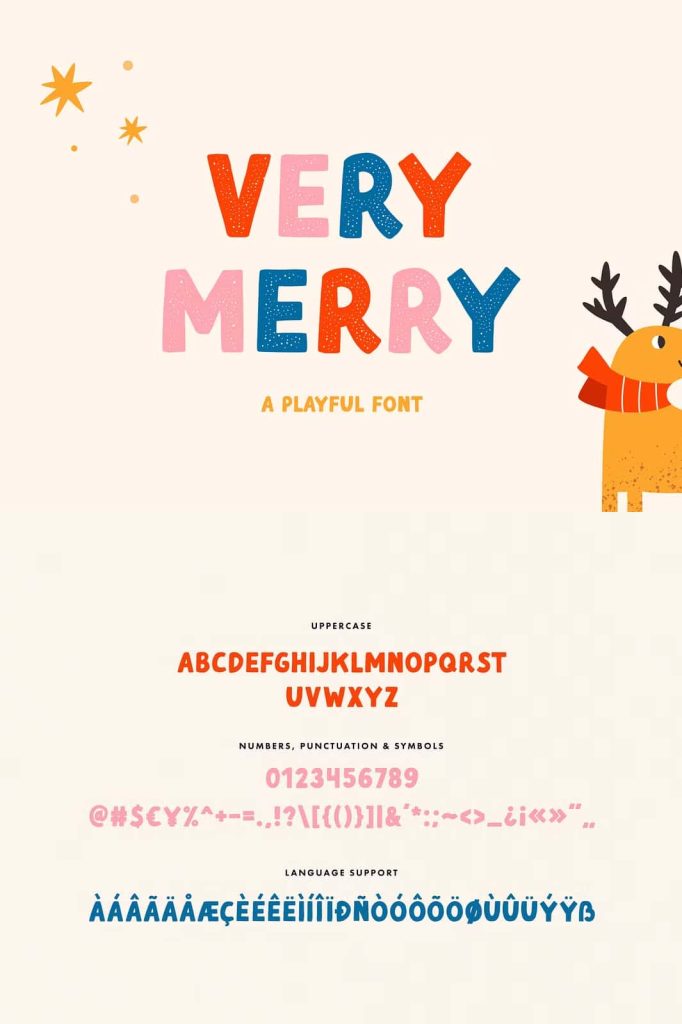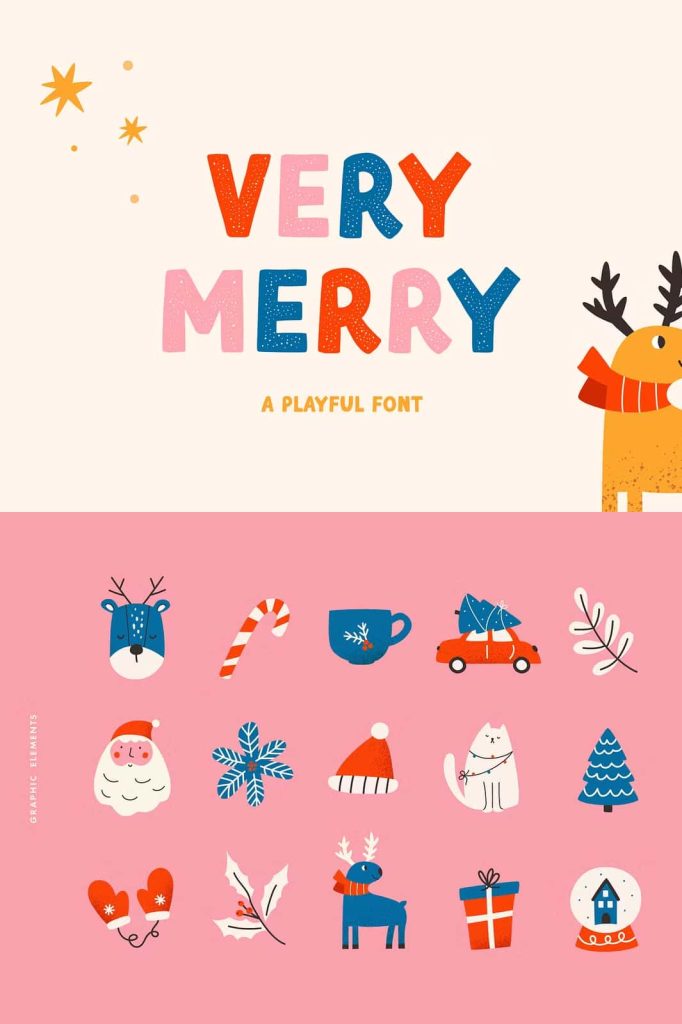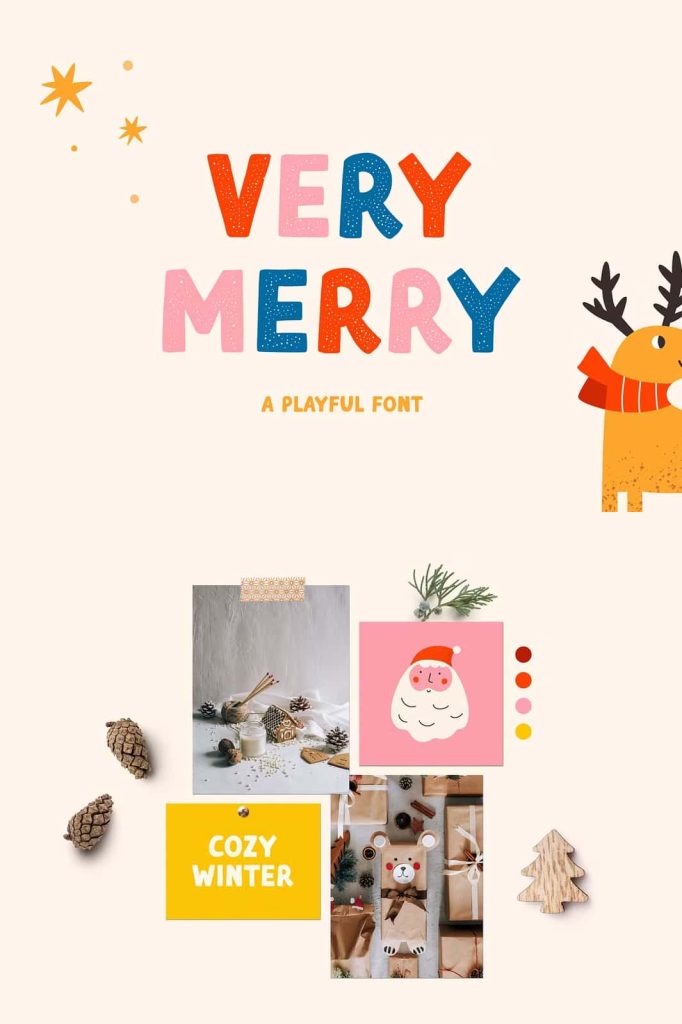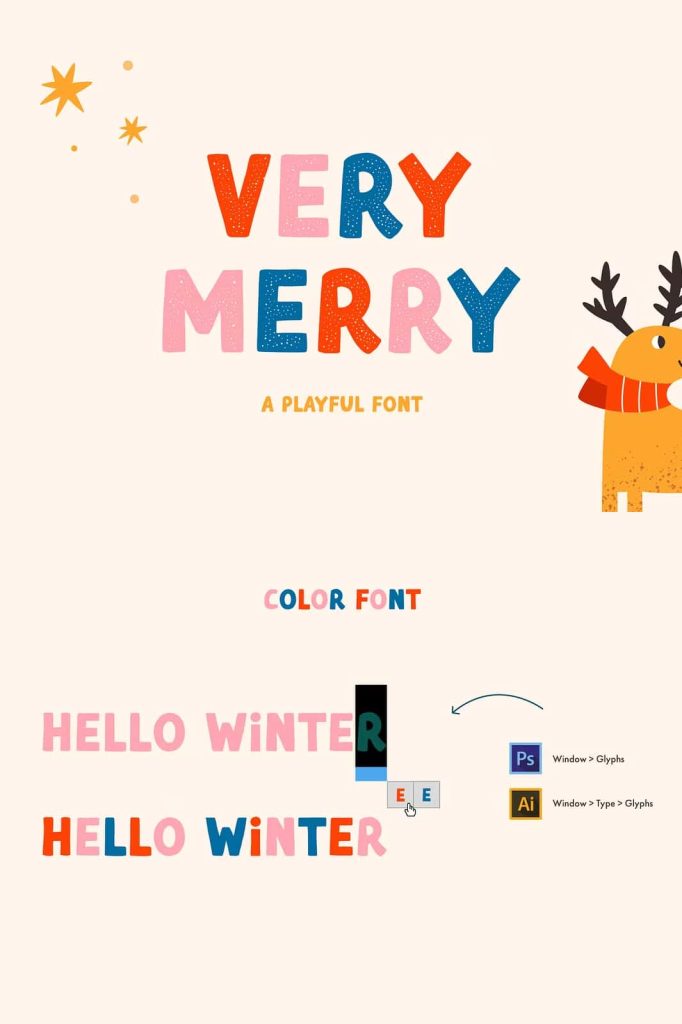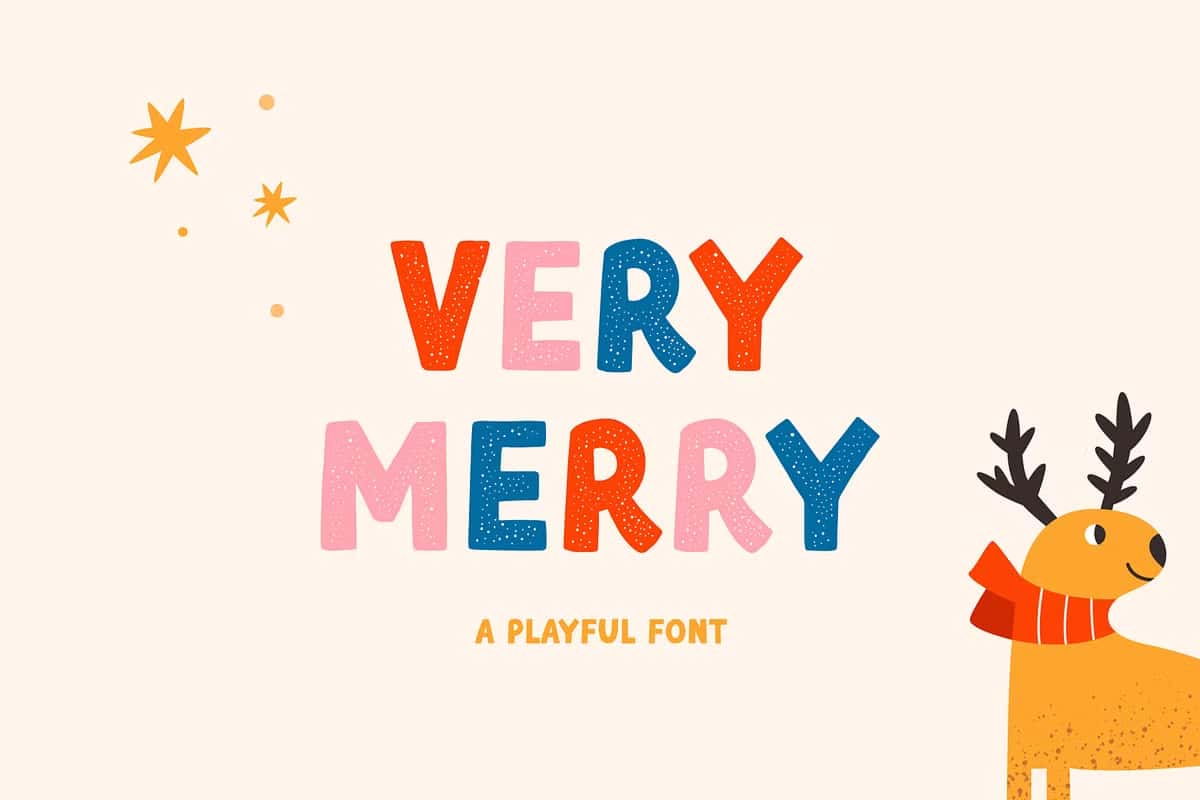
Very Merry Font: Fun, Playful, and Perfect for Cheerful Designs
Very Merry is a lively and playful font designed to bring joy, warmth, and creativity into your design projects. With its friendly character shapes and expressive style, this typeface instantly adds a sense of fun and positivity to any composition. It helps you create designs that feel inviting, energetic, and visually engaging.
This font stands out because it focuses on personality and charm. Each letter carries a unique rhythm that makes your text feel dynamic and full of life. Whether you are designing for personal projects or professional branding, Very Merry gives your work a cheerful and memorable touch.
A Playful Style That Brings Designs to Life
Very Merry uses soft curves and balanced proportions to create a friendly and approachable look. Its playful design makes it ideal for projects that aim to communicate happiness and creativity. The font maintains readability while still delivering a strong visual identity.
The letterforms feel natural and slightly whimsical, giving your typography a handcrafted appearance. This quality helps your designs stand out while keeping them accessible and easy to understand.
Perfect for Creative and Fun Projects
Very Merry adapts easily to a wide range of creative applications. Its versatile style allows you to use it across different mediums while maintaining a consistent and appealing look. From print materials to digital content, this font delivers reliable and attractive results.
The font works especially well in projects that require a lighthearted and playful tone. It helps you communicate ideas in a way that feels engaging and enjoyable for your audience.
Key Features of Very Merry
- Playful and cheerful design style
- Friendly and approachable letterforms
- Balanced readability with creative expression
- Suitable for both print and digital use
Ideal for Logos, Invitations, and More
Very Merry excels in projects that require a fun and creative touch. Its expressive style makes it perfect for logos, invitations, and decorative typography. You can use it to create designs that feel personal, warm, and visually appealing.
The font enhances the overall mood of your design, making it more engaging and memorable. Its versatility allows you to apply it in various contexts without losing its distinctive charm.
Best Use Cases for Very Merry
- Logo design and branding
- Quotes and typography artwork
- Invitations and greeting cards
- Journals and creative projects
- Posters and promotional materials
- Baby clothing and children’s products
Create Friendly and Memorable Branding
Very Merry helps you build a brand identity that feels approachable and engaging. Its playful style communicates warmth and creativity, making it ideal for brands that want to connect with their audience on a personal level.
By using this font, you can design logos and visual elements that feel unique and inviting. Its cheerful appearance ensures that your branding stands out and leaves a positive impression.
Enhance Greeting Cards and Invitations
Very Merry is particularly effective for greeting cards and invitations. Its lively character adds a sense of celebration and joy, making it perfect for special occasions. Whether you design holiday cards or party invitations, this font helps you create a festive and welcoming atmosphere.
The font’s readability ensures that your message remains clear while maintaining a decorative and playful style. This balance makes it suitable for both headlines and supporting text.
Pairing Very Merry with Other Fonts
To create a balanced design, pair Very Merry with clean and simple typefaces. Sans serif fonts work well as companions because they provide contrast and improve readability. This combination allows Very Merry to remain the focal point while supporting text stays structured.
Use Very Merry for headlines, titles, or key phrases, and combine it with a minimal font for body text. This approach ensures your design remains both fun and easy to read.
Improve Your Creative Workflow
Very Merry simplifies the process of creating playful typography. Its expressive design reduces the need for additional decoration, allowing you to achieve a complete and polished look quickly. This efficiency helps you focus on creativity and overall design quality.
The font encourages experimentation with layouts, colors, and compositions. You can explore different design approaches to discover new possibilities. Its versatility makes it a valuable tool for designers at any level.
Key Advantages of Very Merry
- Fun and engaging design style
- Highly versatile for various creative projects
- Enhances branding with a friendly tone
- Perfect for invitations and greeting materials
- Easy to combine with other fonts
Conclusion
Very Merry is more than just a playful font; it is a creative tool that brings joy and personality into your designs. Its friendly letterforms, versatile application, and cheerful style make it an excellent choice for designers who want to create engaging and memorable visuals. By incorporating Very Merry into your projects, you can produce typography that feels lively, inviting, and full of character.